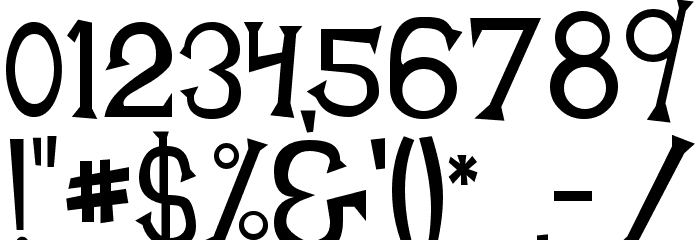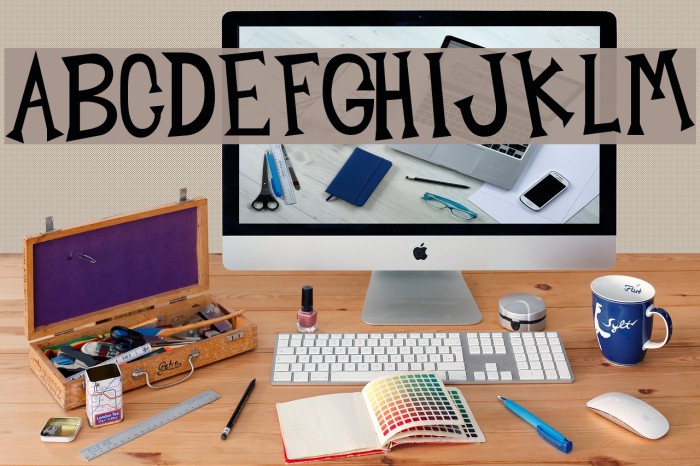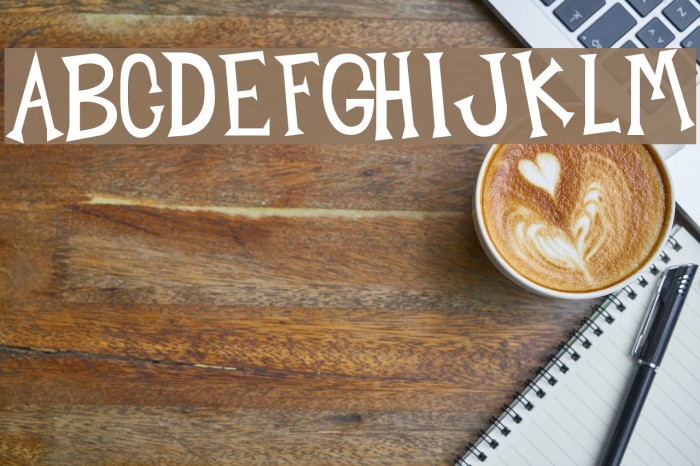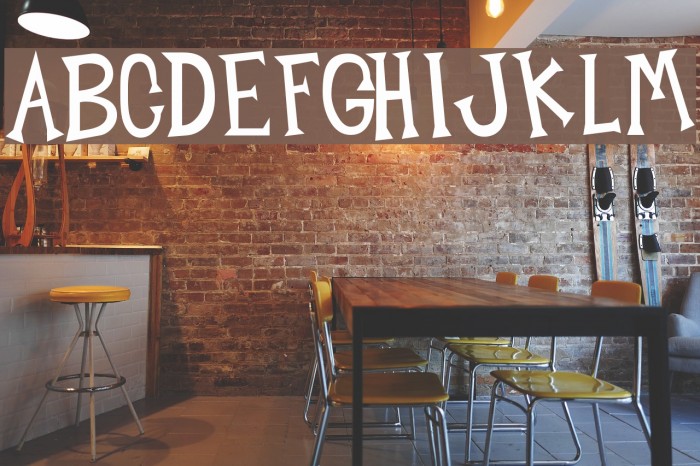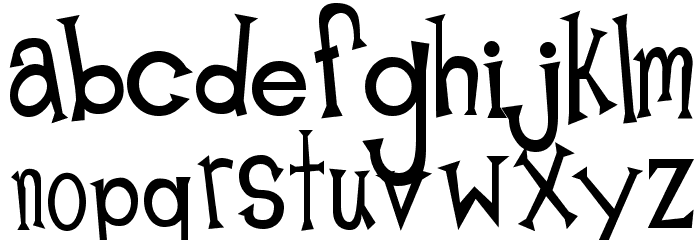
Midnight Junk Yard Font
This font features a quirky and playful design with uneven, slightly distorted letterforms that give it a whimsical and hand-drawn appearance. The characters have a unique, irregular shape with varying stroke widths, adding to its charm and individuality. The uppercase and lowercase letters maintain a consistent style, while the numbers and special characters complement the overall look. This font is ideal for creative projects that require a fun and informal touch.
A quirky, playful font with uneven, hand-drawn letterforms.
• Proposed Projects: Perfect for children's books, playful branding, party invitations, and creative posters.
• Category: Decorative/Display
• Overall Style: Whimsical
• Use Case: Headlines, Logos, Posters